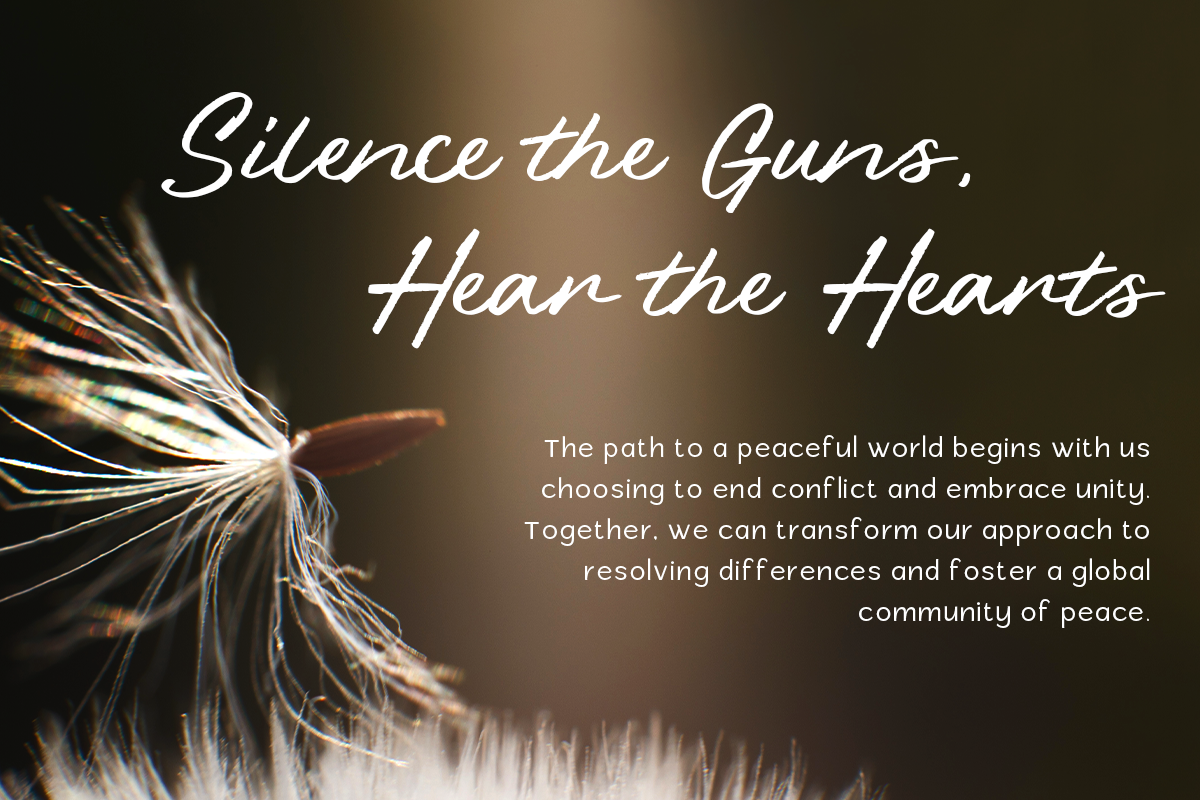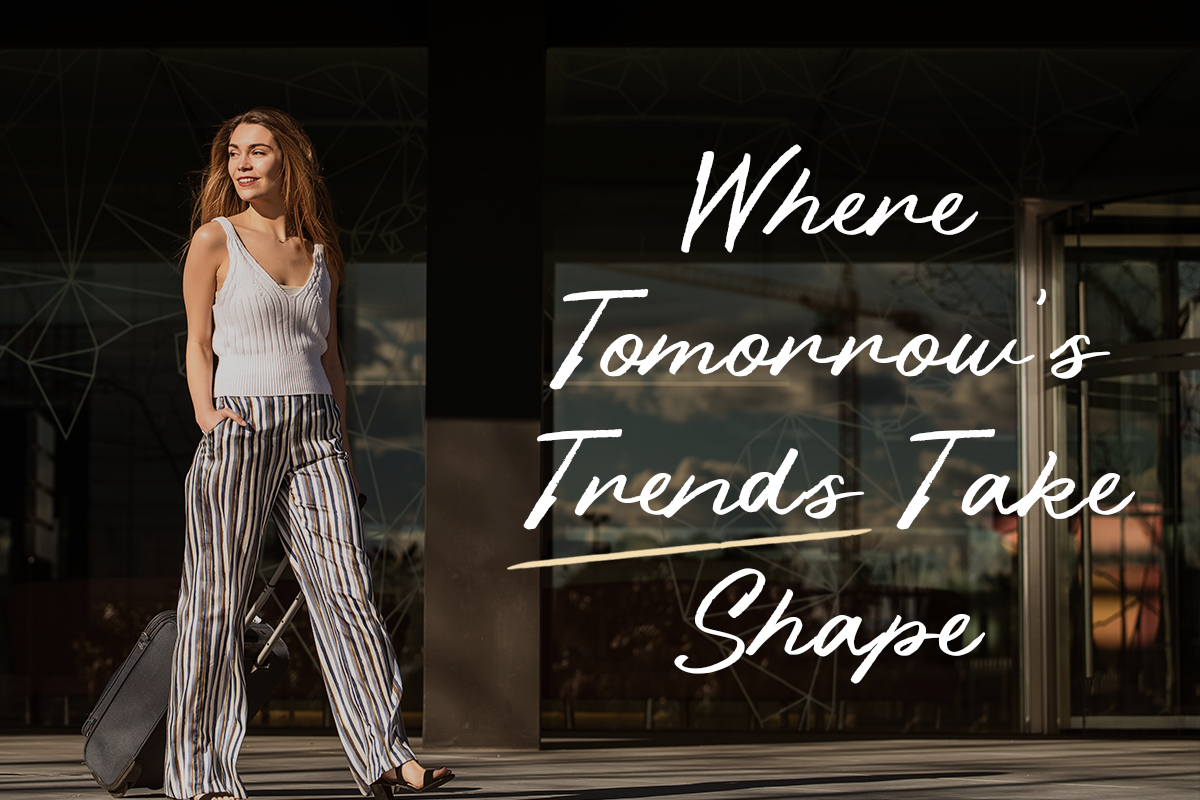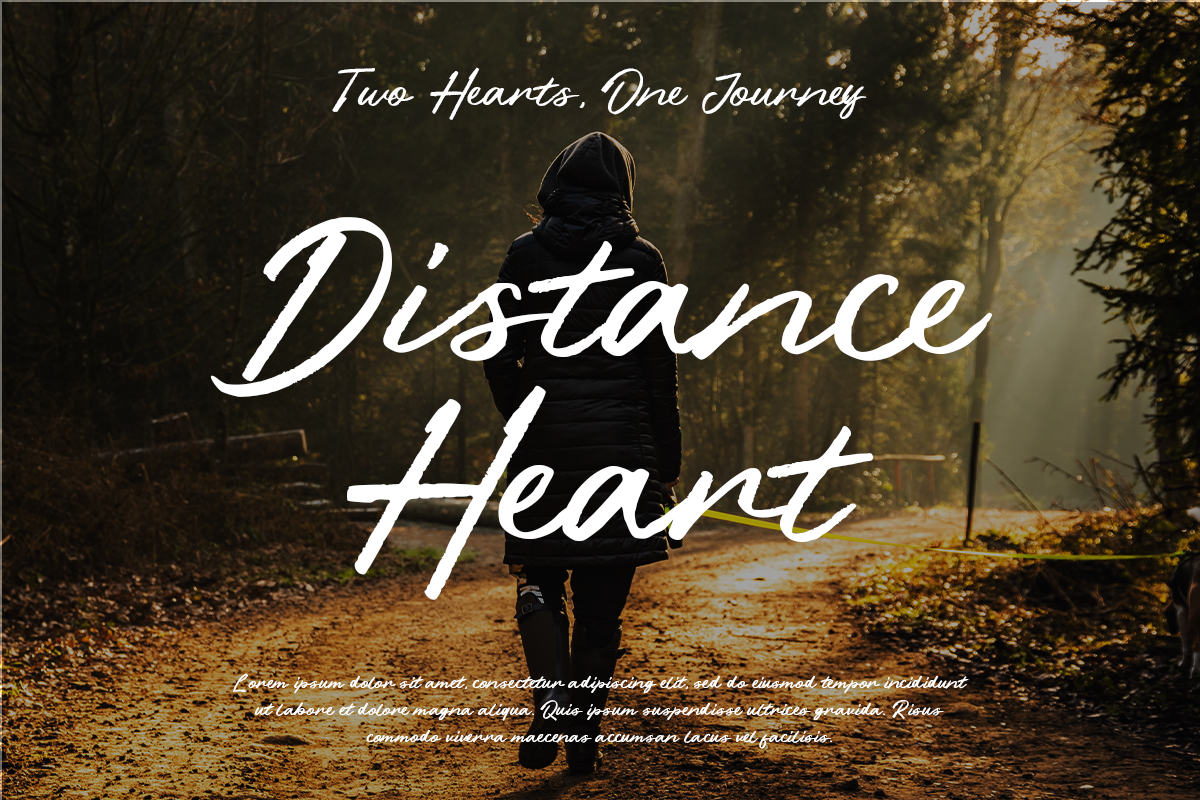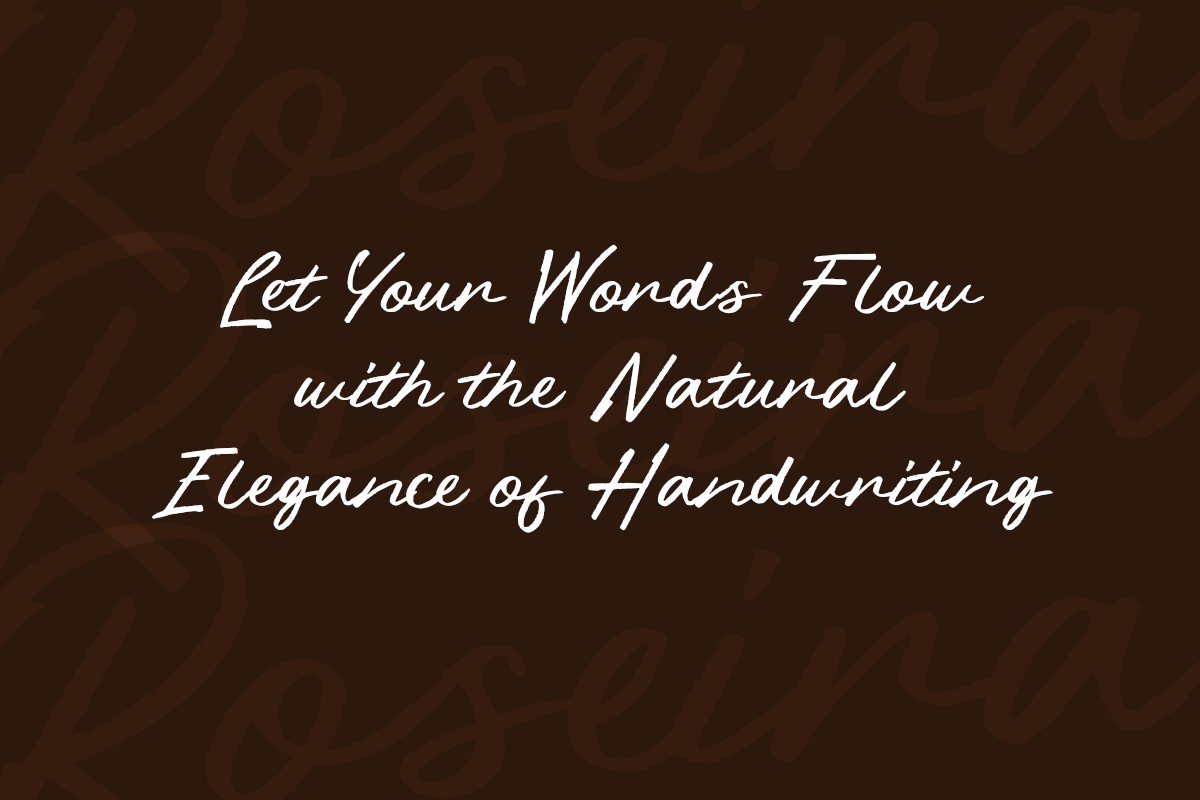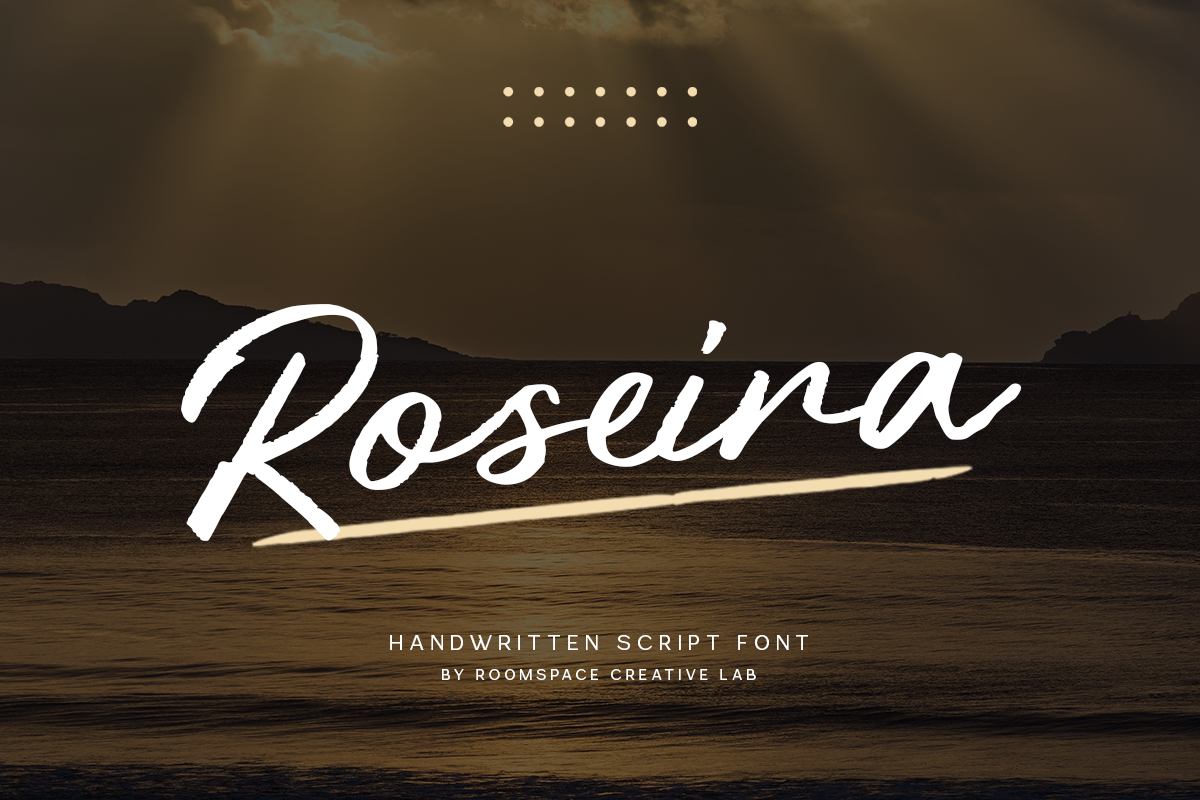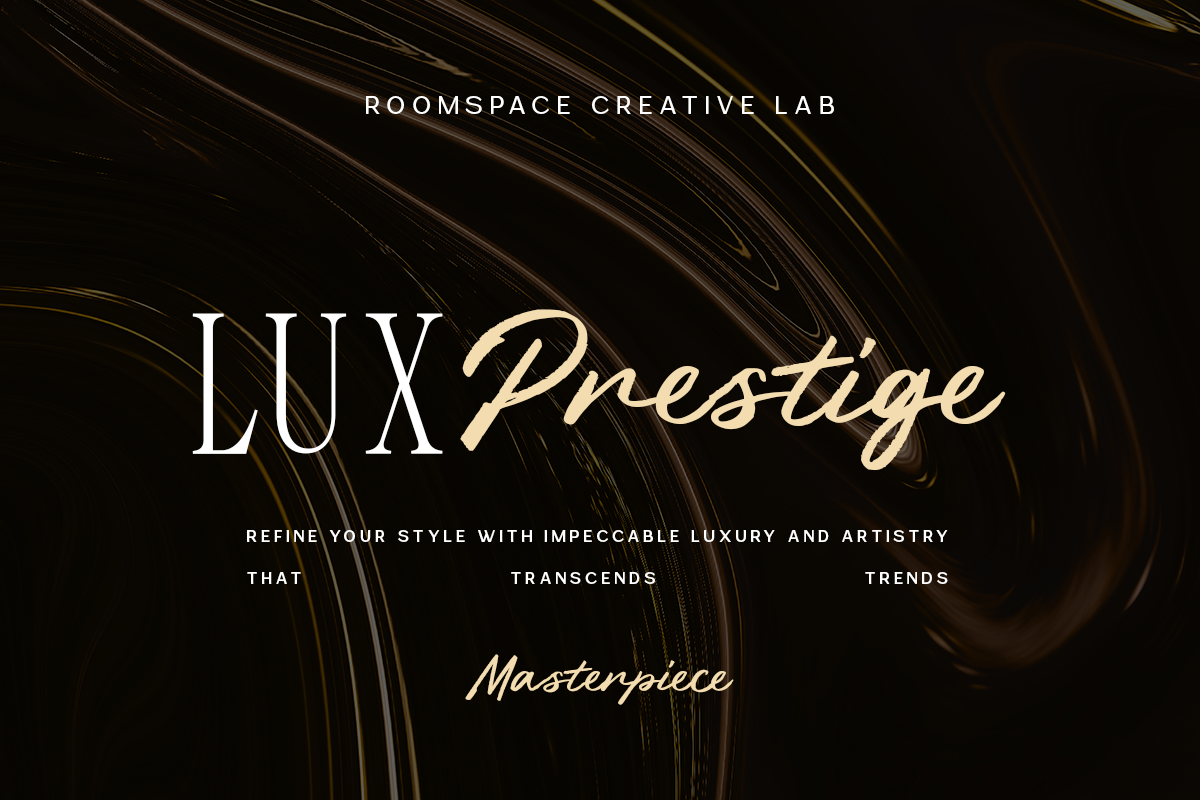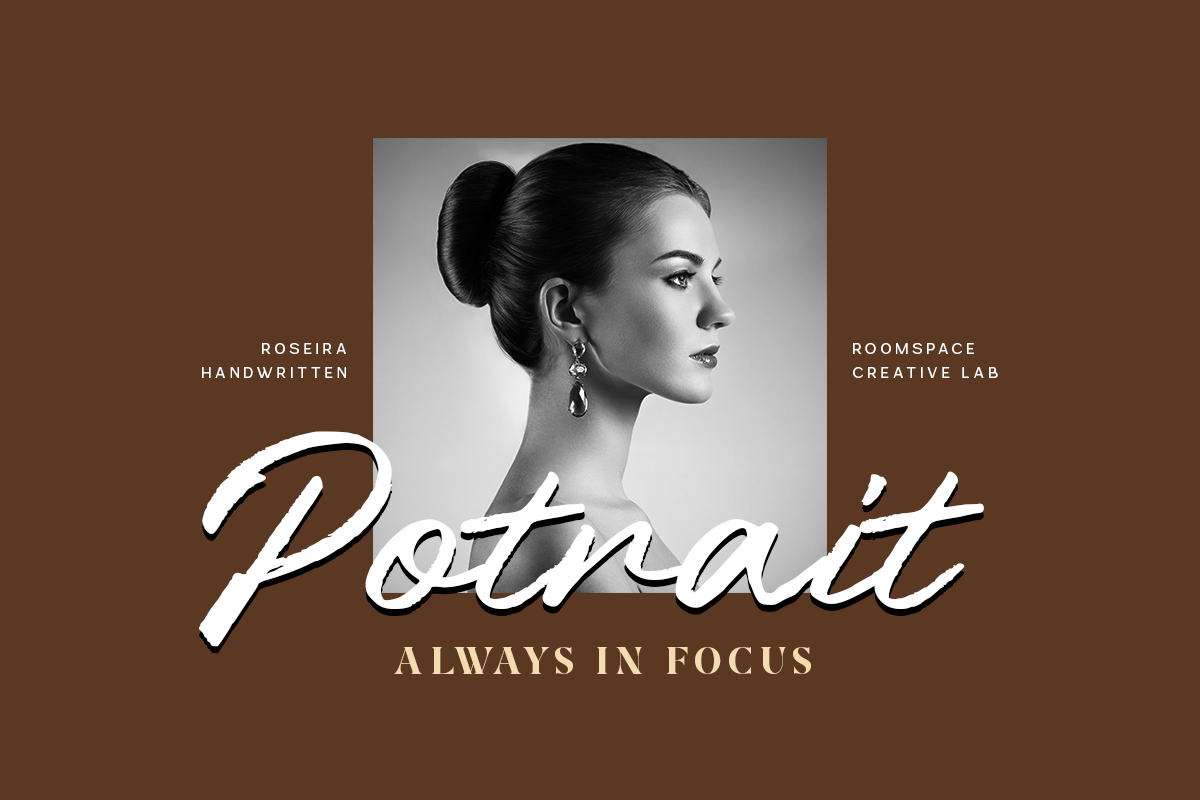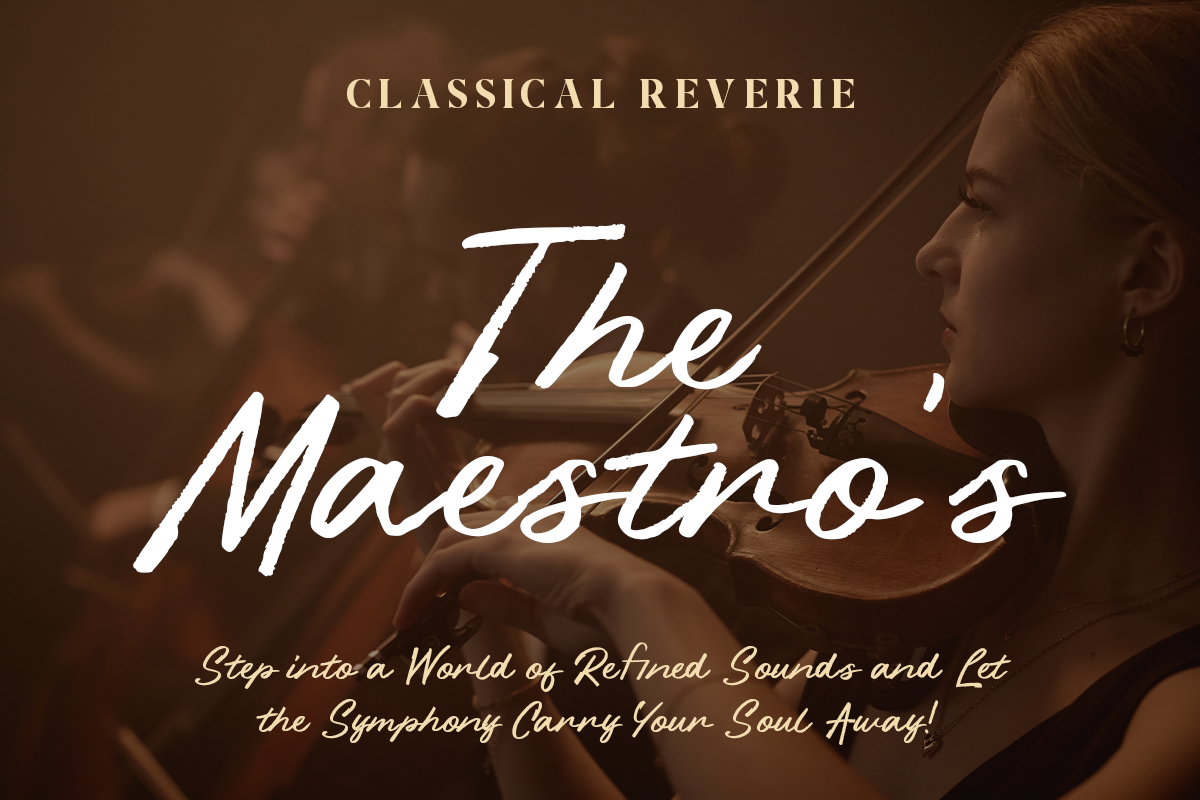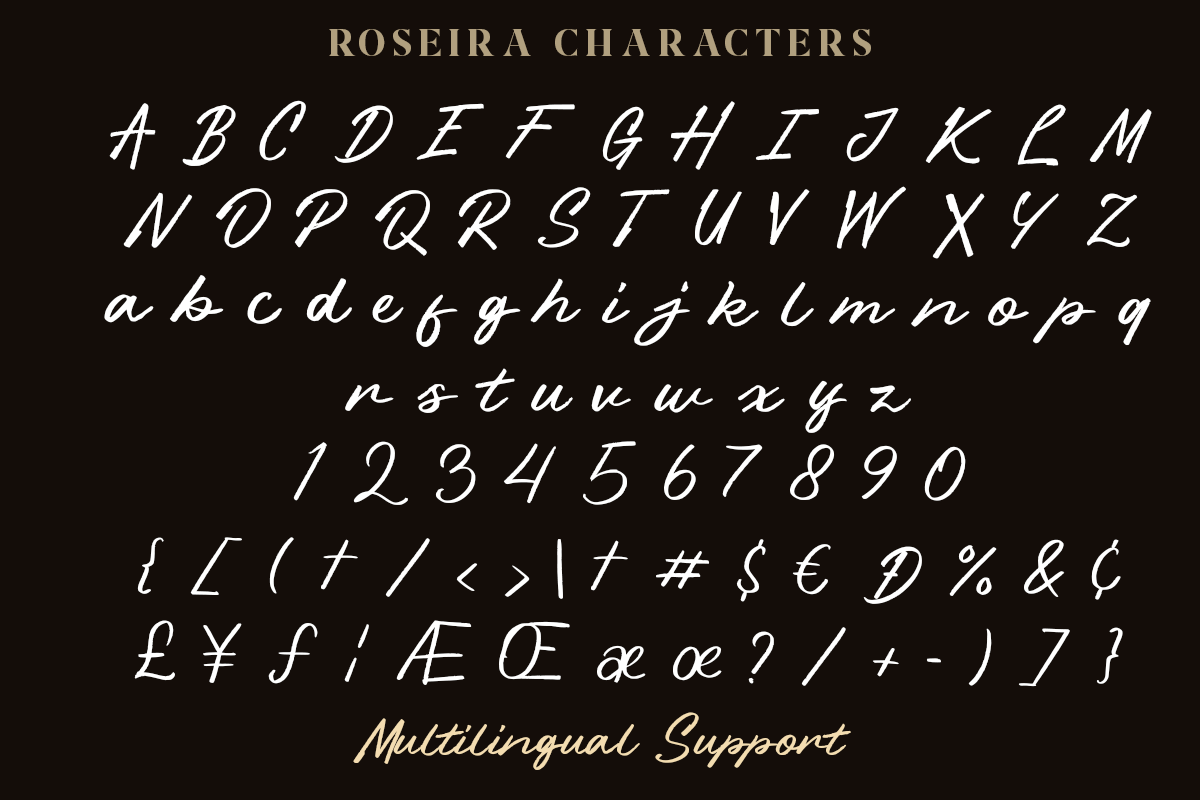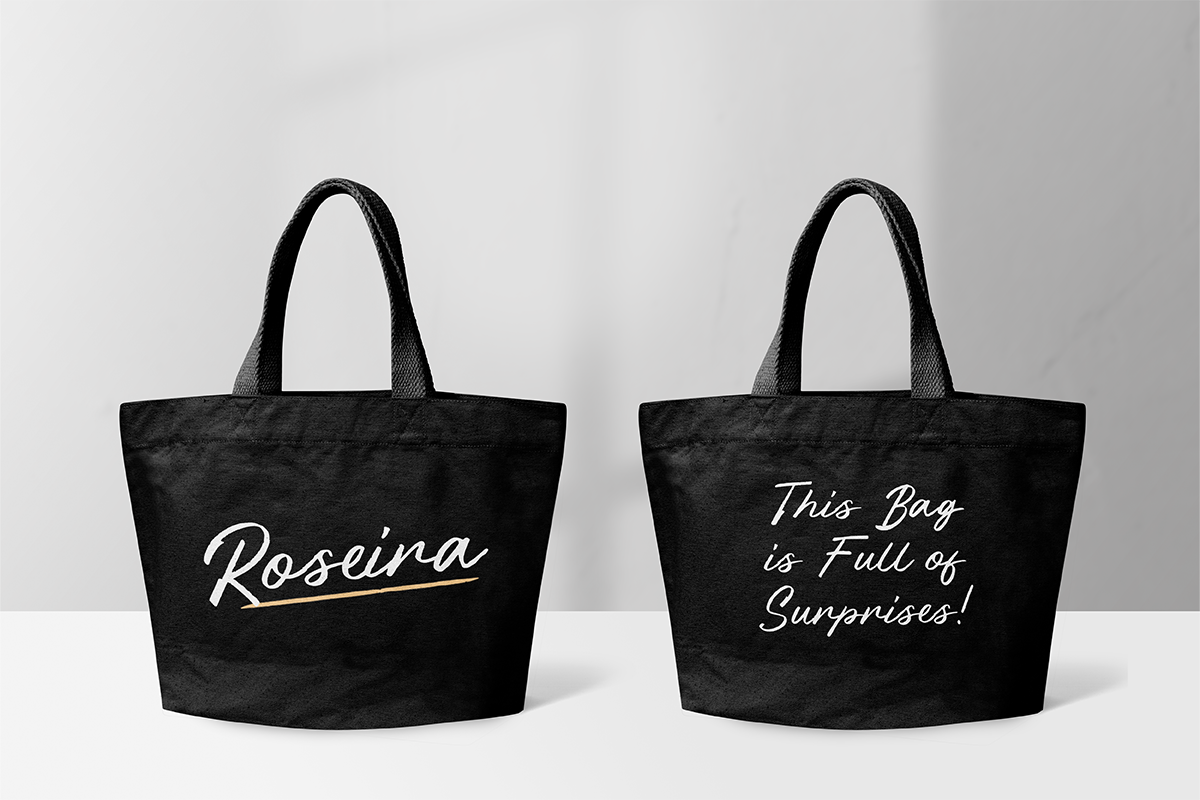
Roseira - Handwritten Brush Font
Roseira is a beautifully crafted handwritten script font that embodies effortless elegance and sophistication. Designed to add a personal touch to your projects, Roseira is perfect for everything from branding and logo design to wedding invitations and social media graphics. The smooth, flowing lines of this font capture the natural beauty of hand-lettering, making it an ideal choice for designs that require a warm and inviting feel.
Whether you're creating a timeless wedding suite or a modern branding package, Roseira offers the versatility and charm you need. With full multilingual support, this font is ready to serve a global audience, making it easier than ever to share your message with the world. Its carefully designed glyphs ensure that each character flows seamlessly, providing a professional finish to your work.
Add a touch of handcrafted beauty to your designs with Roseira – where elegance meets creativity